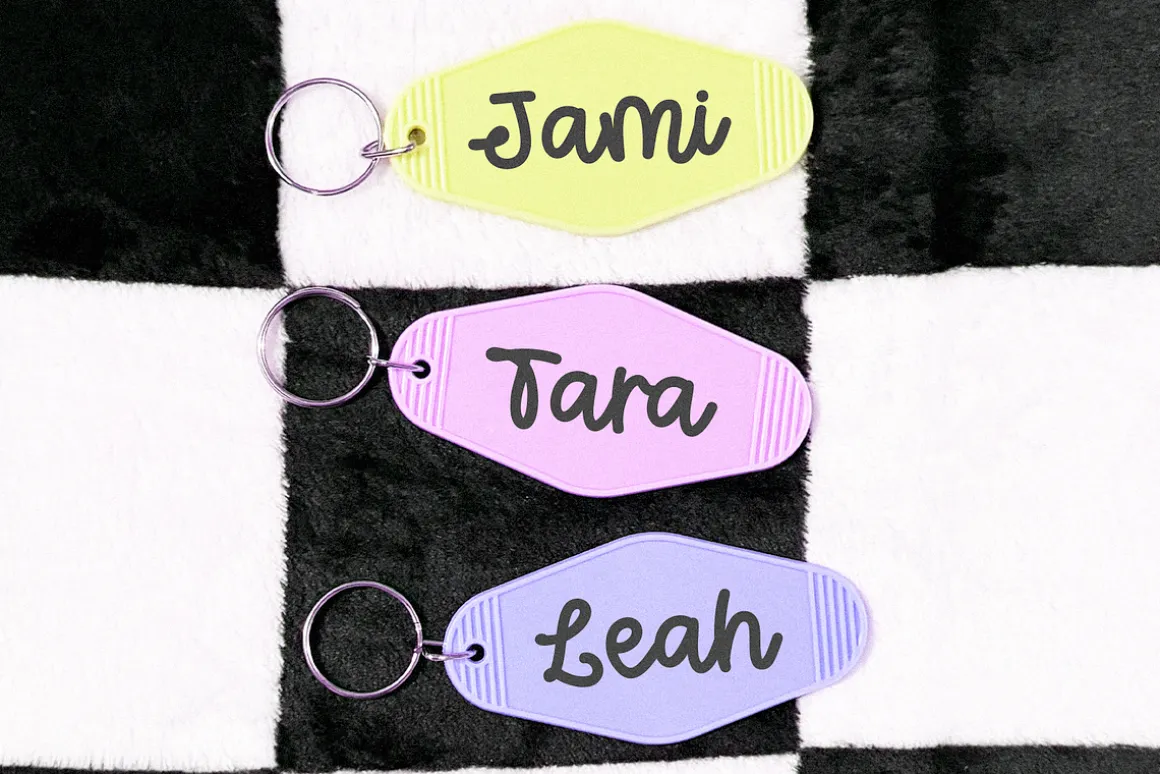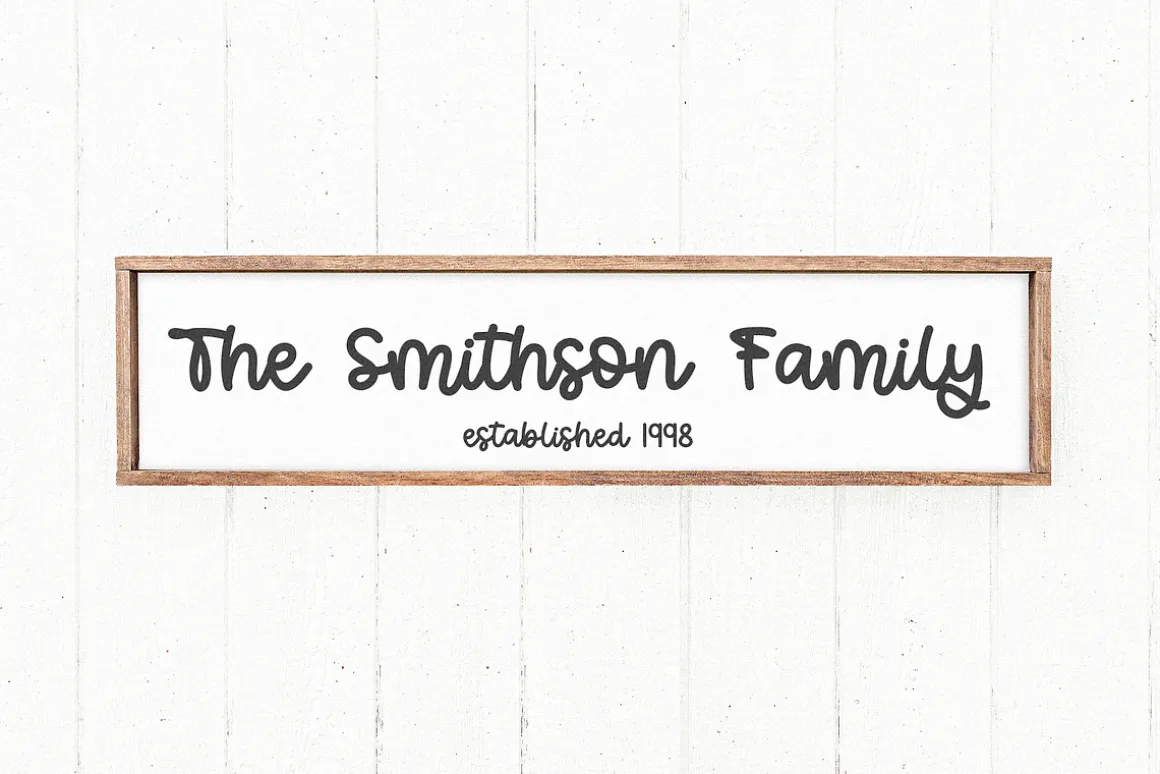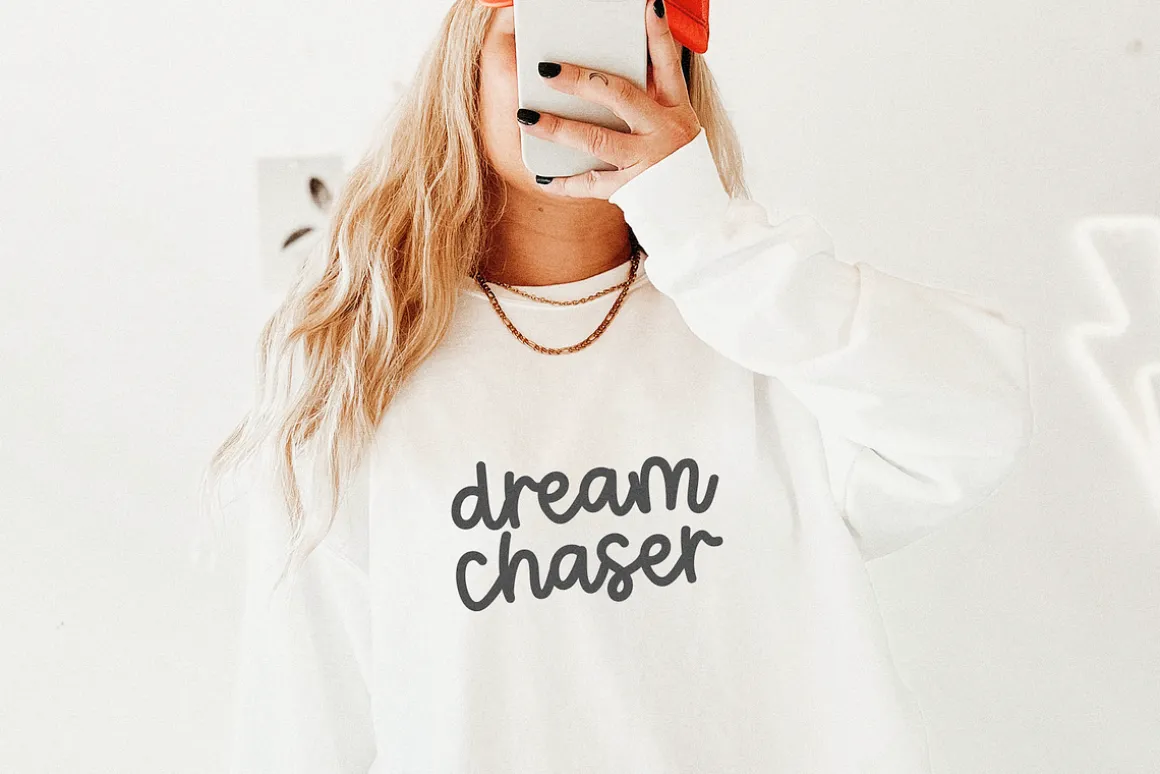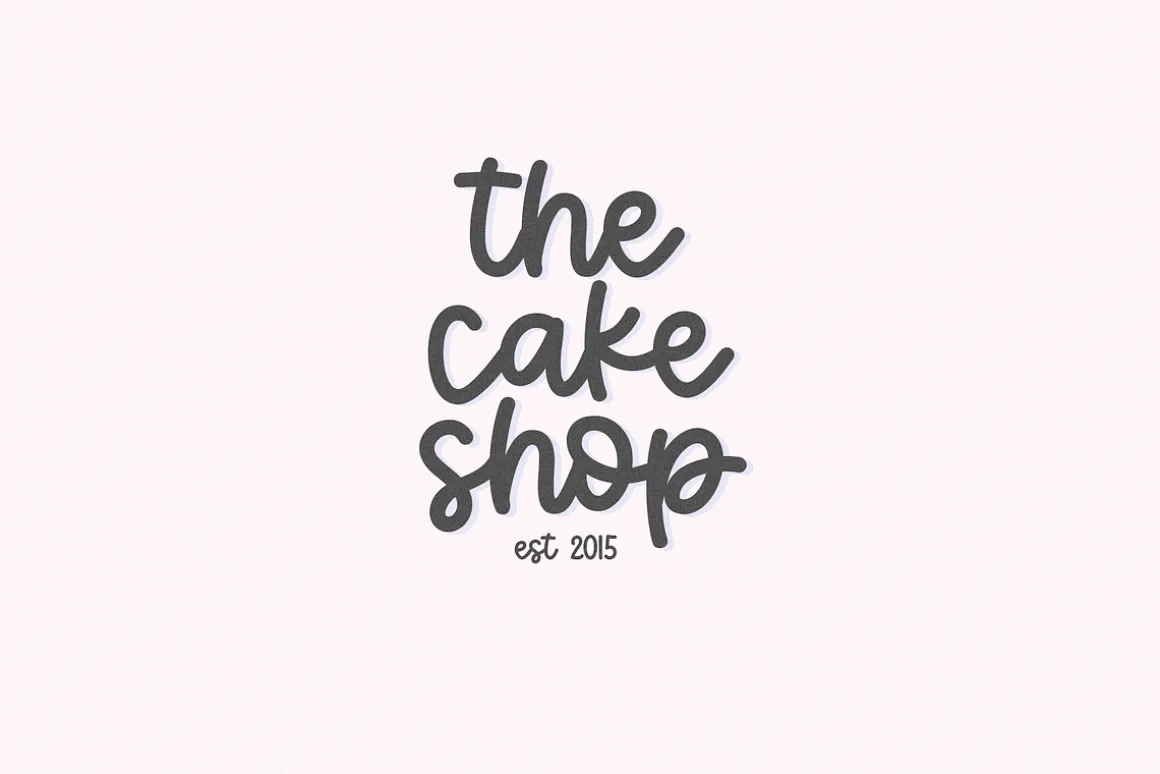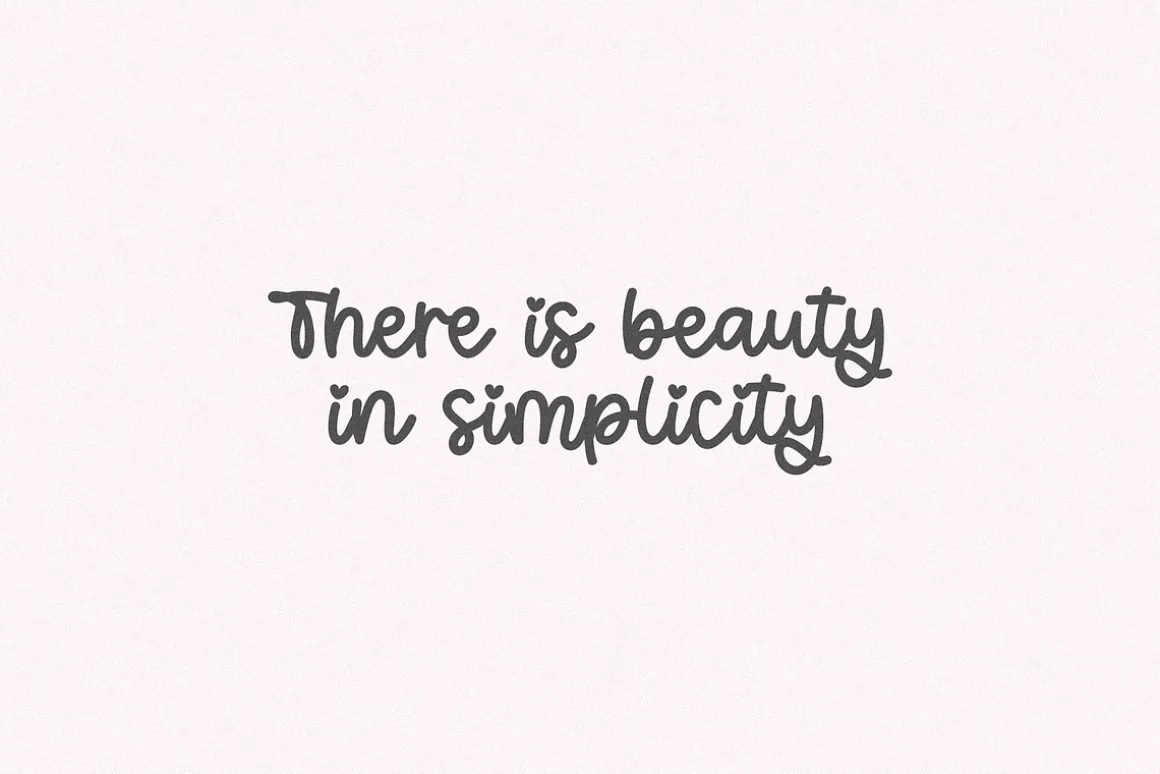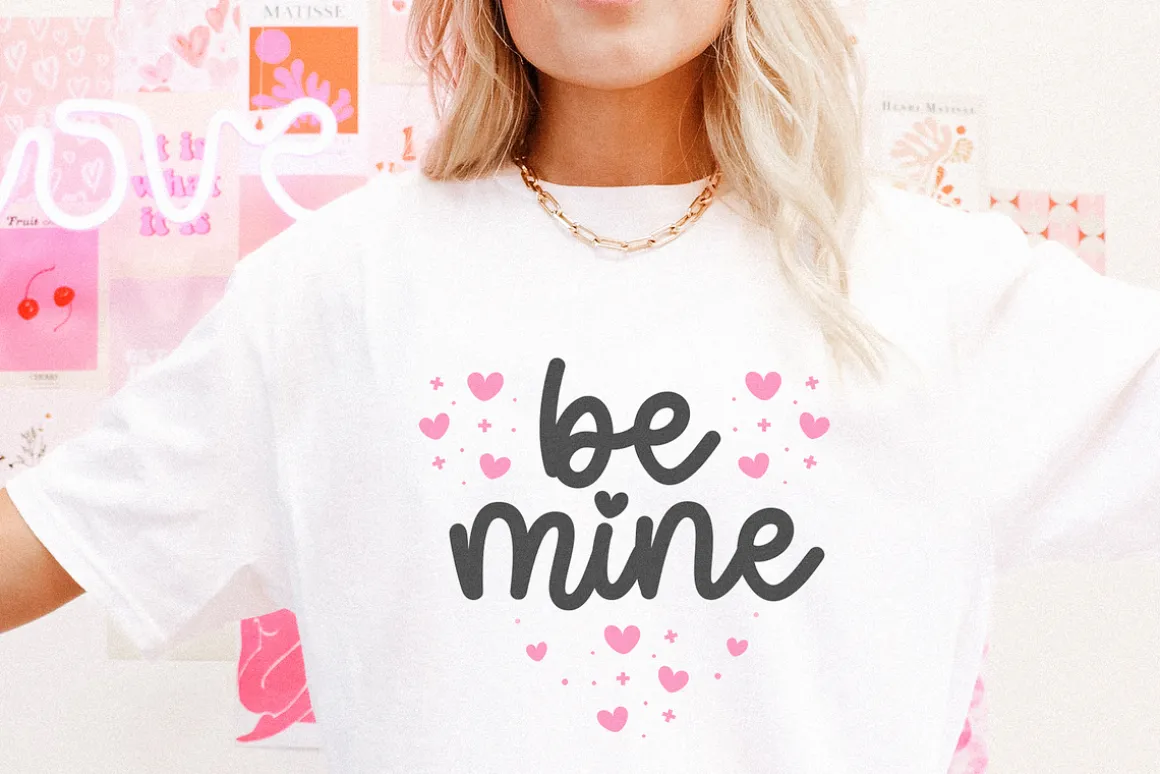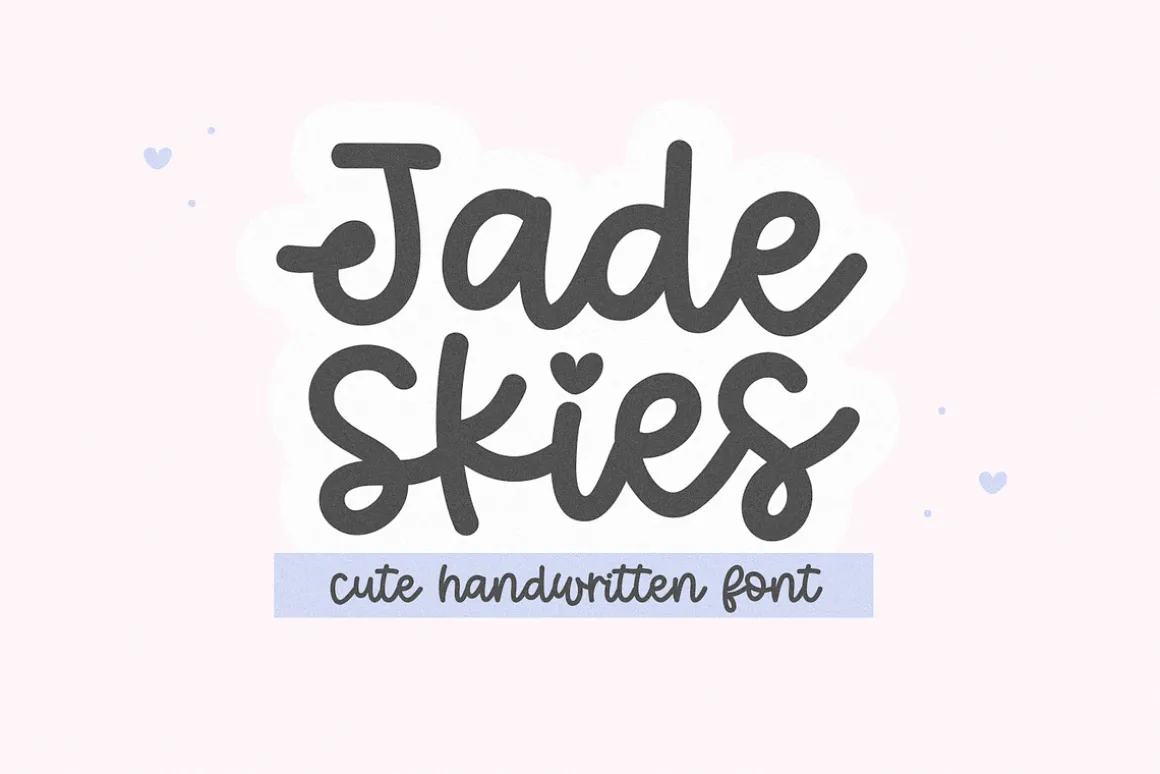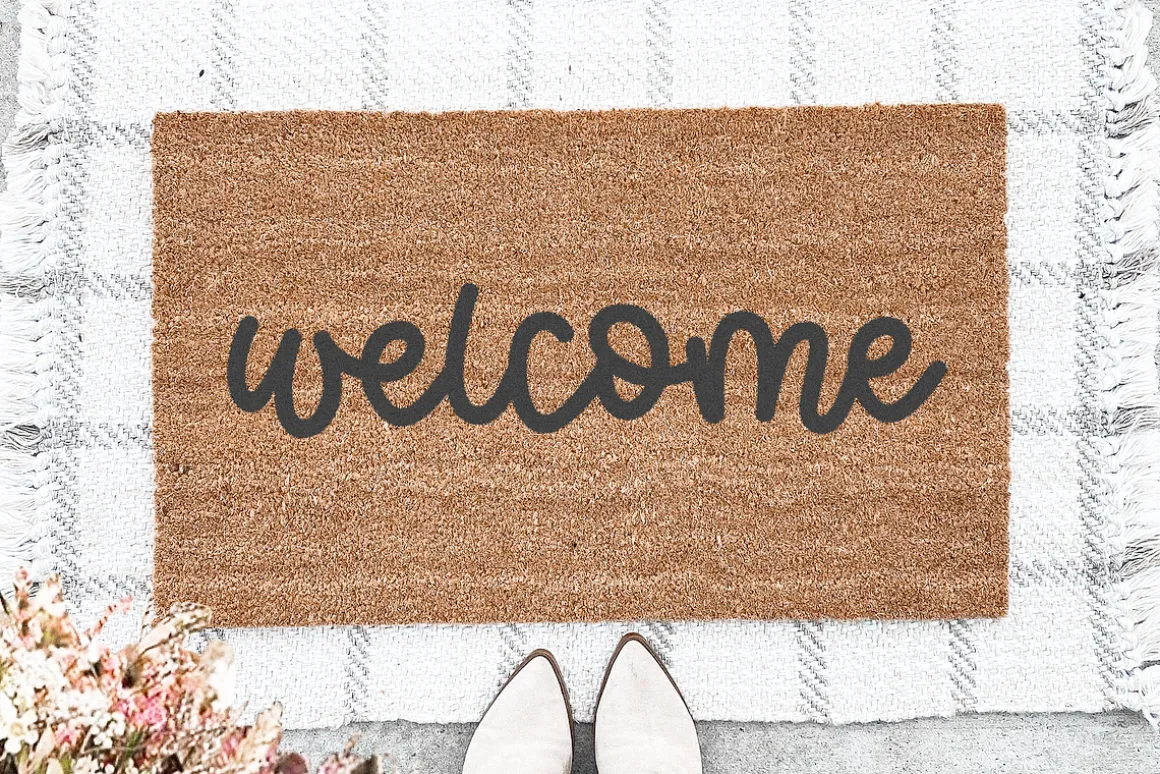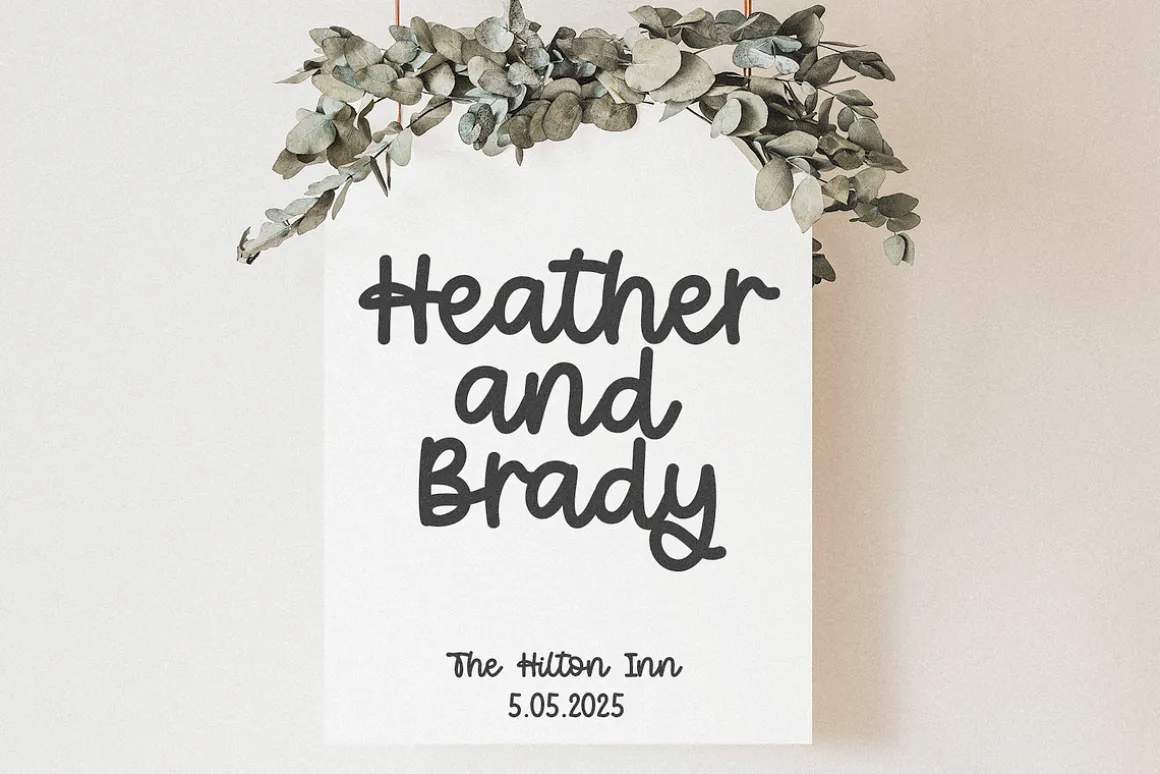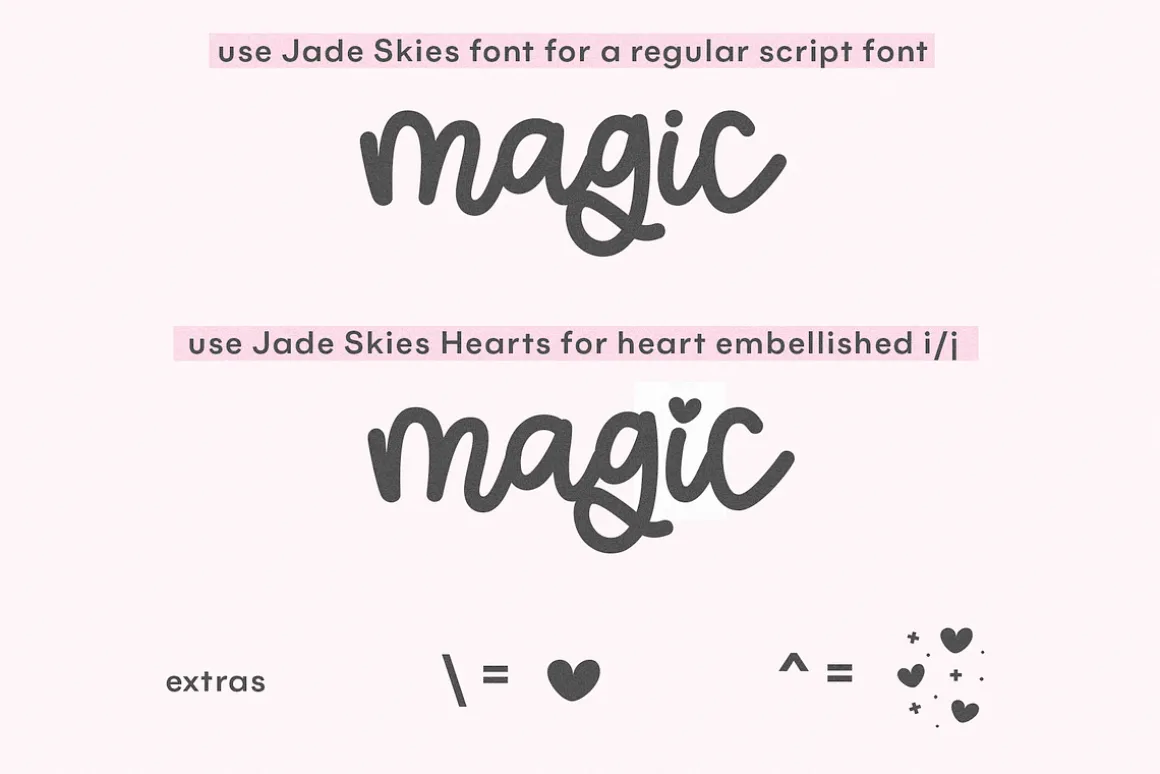
Jade Skies is a cute handwritten script font.
This font is perfect for cricut projects, logos, shirts, svg files, teachers, Valentine’s Day designs and more!
Jade Skies – regular script font
Jade Skies Hearts – heart dotted i/j
Jade Skies is a cute handwritten script font.
This font is perfect for cricut projects, logos, shirts, svg files, teachers, Valentine’s Day designs and more!
Jade Skies – regular script font
Jade Skies Hearts – heart dotted i/j